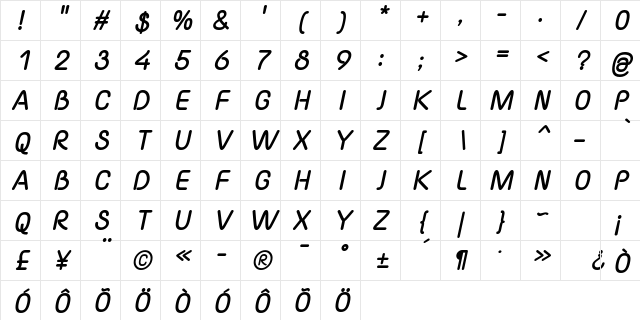
Complete Yaahowu Thick Italic glyph index. Displaying only characters natively supported by Yaahowu Thick Italic font.
Yaahowu Thick is a composed and adaptable typeface that performs quietly and consistently across a wide range of design contexts. The slanted form adds forward momentum and visual energy.
Pro Tip: Use Yaahowu Thick for emphasis, pull quotes, and subheadings where its slanted energy can add rhythm to the layout.